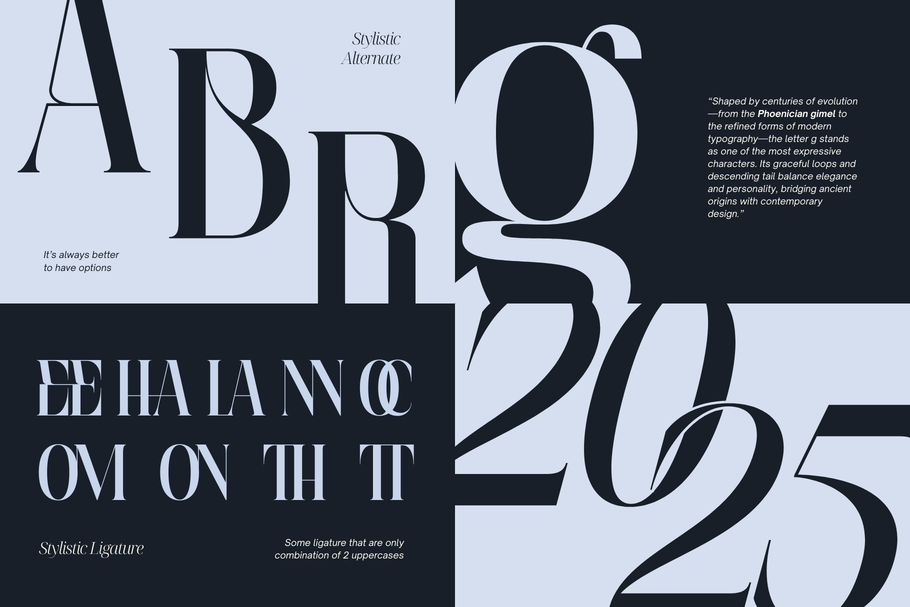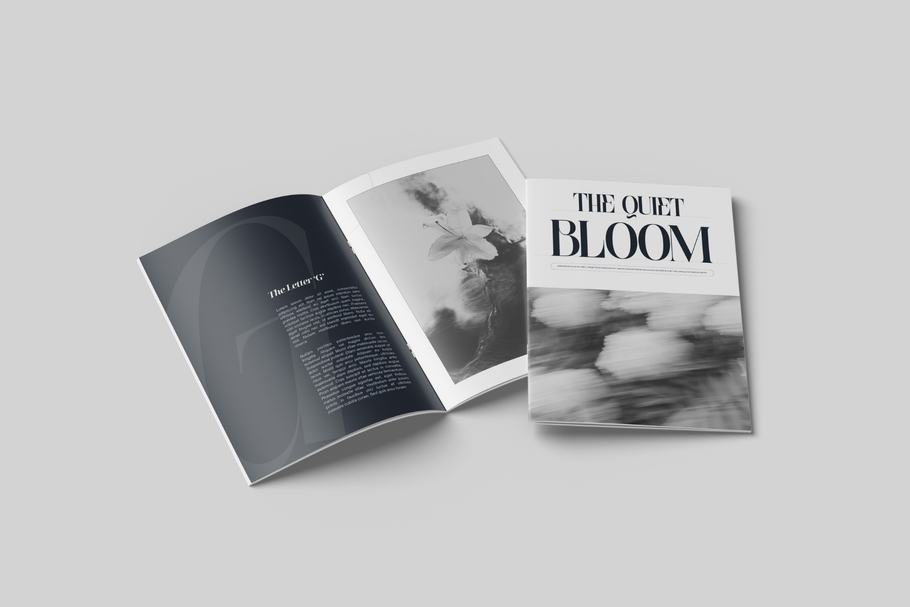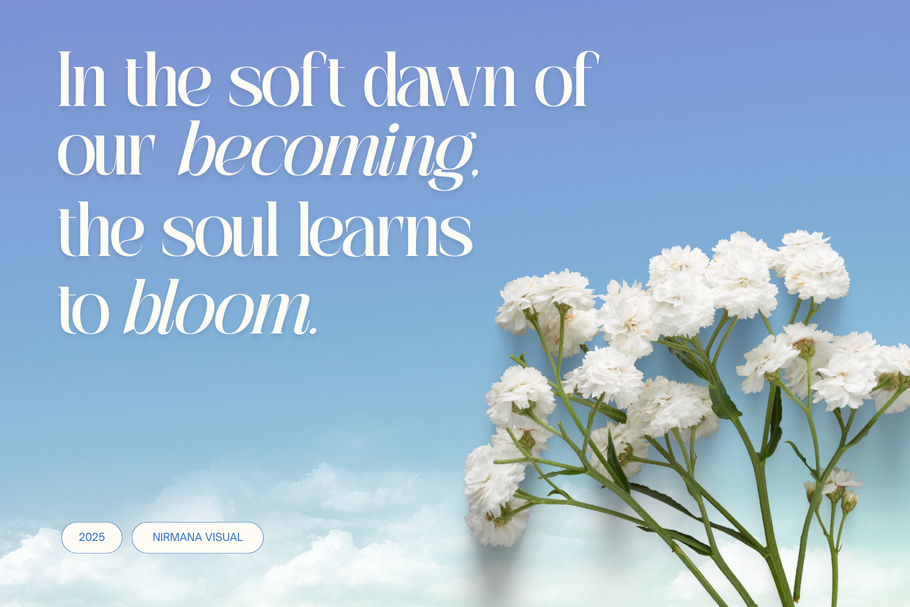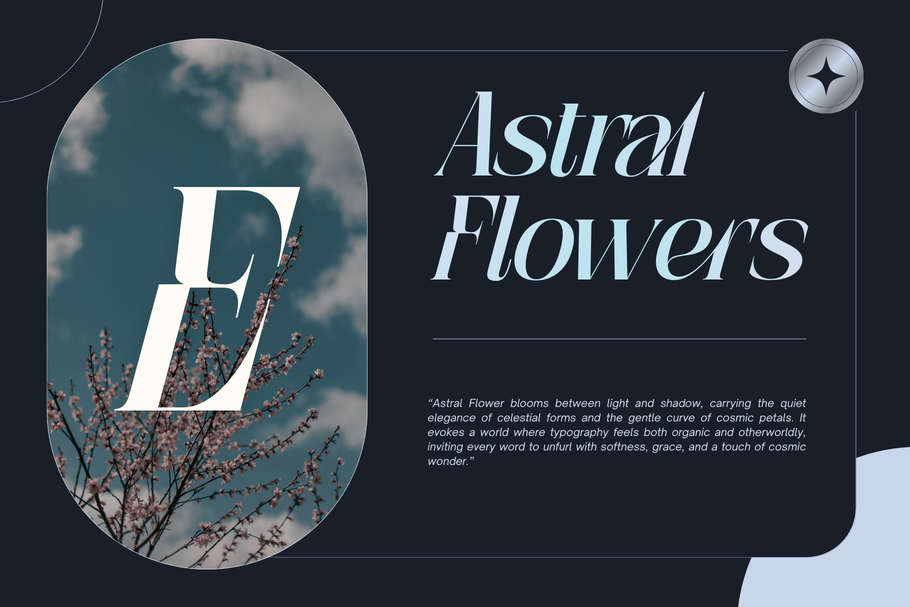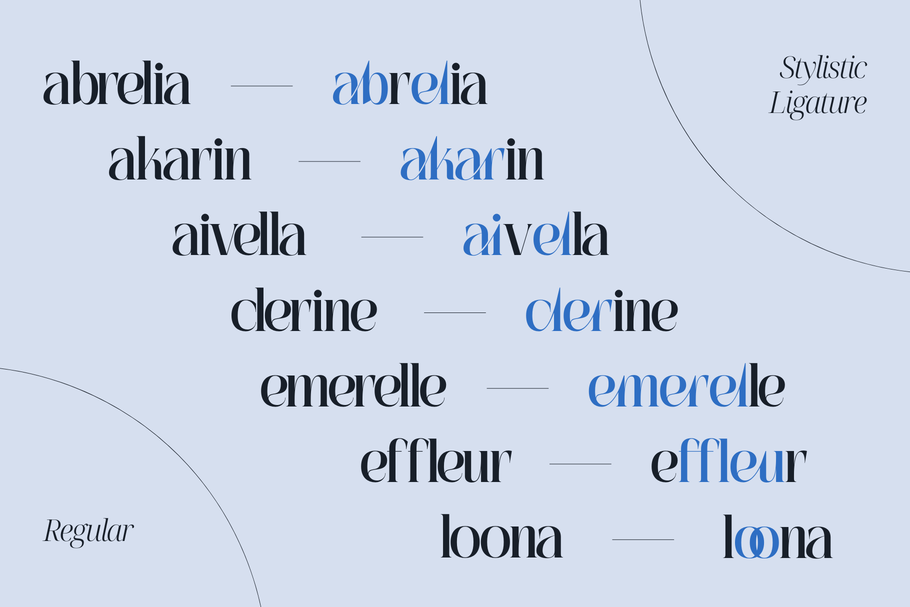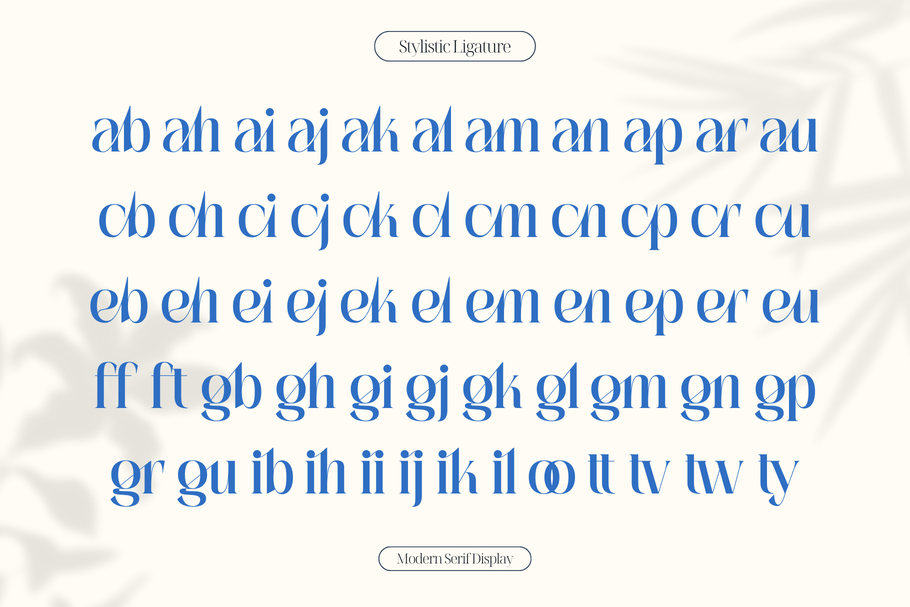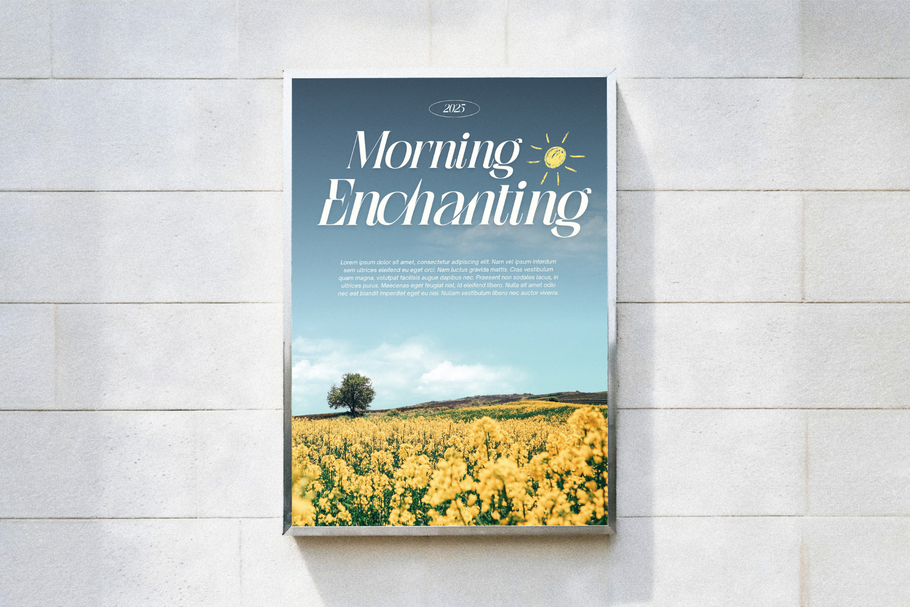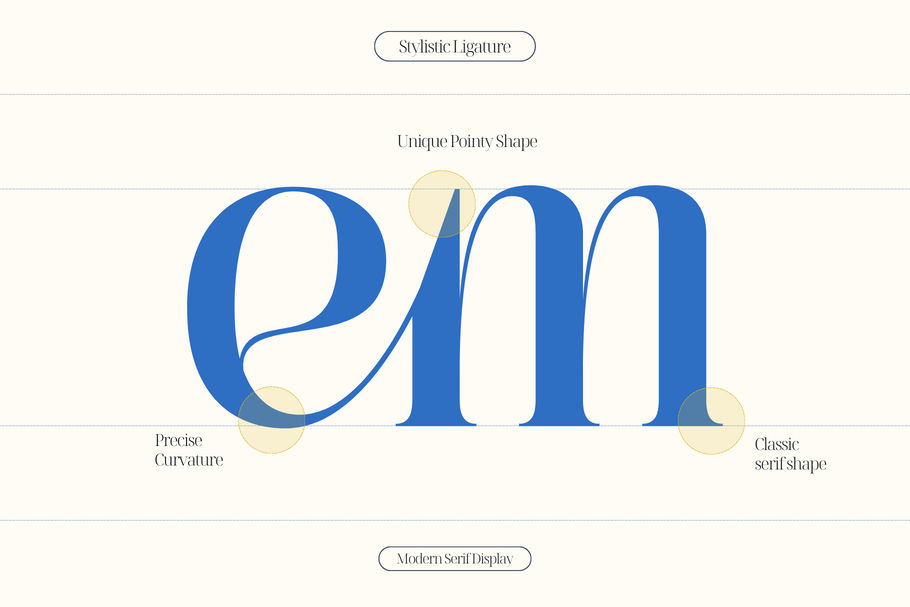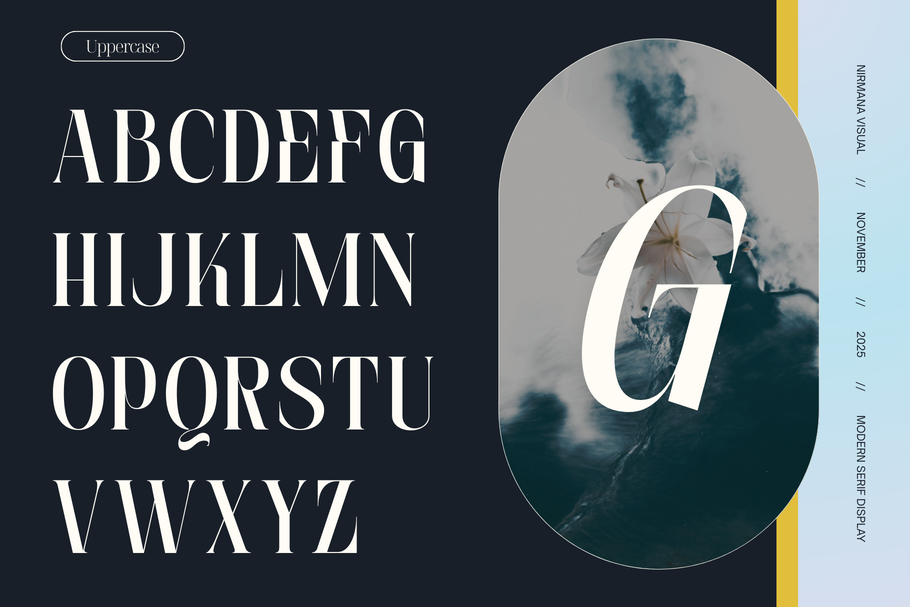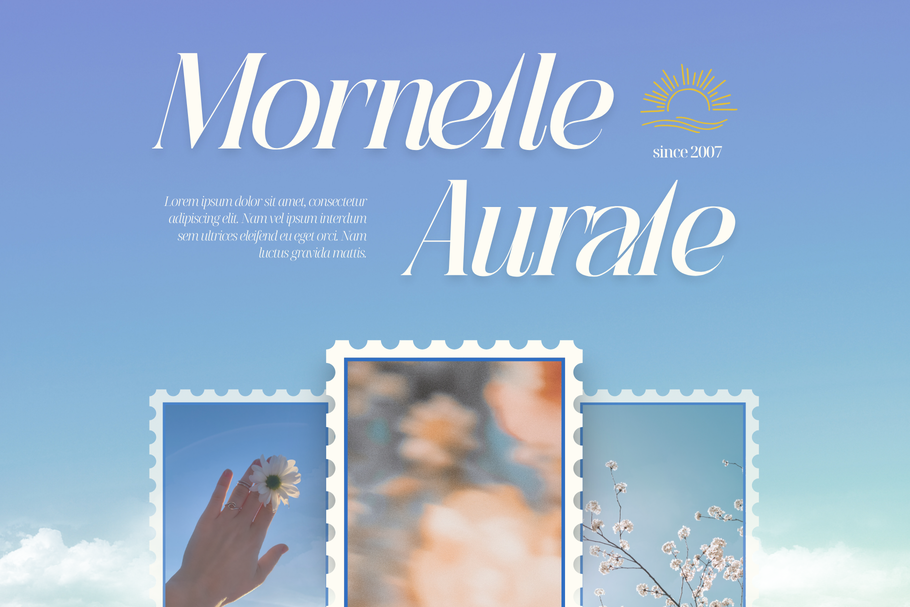
Aguilary Modern – Elegant Logo Font
Aguilary Modern is an aesthetic serif typeface featuring elegant ligatures, available in Regular and Italic. Crafted for refined logo branding, striking headlines, stylish posters, and more, its modern curves and sophisticated details bring a premium, timeless feel to any design. Perfect for creatives seeking a classy, polished, and visually captivating typographic statement.
Features :
- Multilingual Support
- Regular + Italic
- Aesthetic Ligatures Font
Aguilary Modern offers beautiful typographic harmony for a diversity of design projects, including logos & branding, social media posts, advertisements & product designs.
- Elegant Logo Font
- Modern Design
- Perfect for Branding & Logos
- Multilingual Support
- Regular + Italic